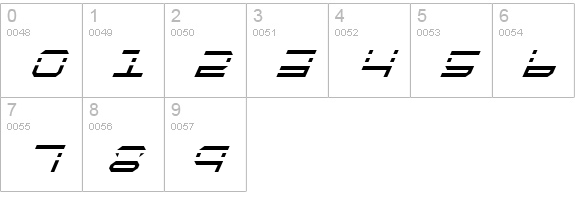
QuickQuick Condensed Italic is a distinctive, condensed-width, italic variant in the QuickQuick typeface family \xE2\x80\x94 well suited to design and typography projects.
Introducing QuickQuick Condensed Italic, the perfect fusion of elegance and efficiency. This font is designed to captivate your audience with its sleek and stylish aesthetic, while also providing a practical solution for all your typographic needs. QuickQuick Condensed Italic boasts a unique blend of sharp angles and flowing curves, creating a harmonious balance that is both visually striking and highly legible. Its condensed form allows for maximum space utilization, making it ideal for projects that require a compact yet impactful design. Whether you're creating eye-catching headlines, designing modern logos, or crafting professional presentations, QuickQuick Condensed Italic is your go-to choice for adding a touch of sophistication to your work. Its italicized variation adds an extra layer of elegance and flair, perfect for emphasizing important elements or creating a sense of motion and dynamism. But that's not all – QuickQuick Condensed Italic is not only impressive in its design, but also in its accessibility. We believe that everyone deserves access to high-quality fonts, which is why we are thrilled to offer QuickQuick Condensed Italic for free. That's right, you can freely download this extraordinary font at FontsMarket.com, where a world of possibilities awaits. So why wait? Elevate your designs with QuickQuick Condensed Italic and experience the seamless blend of style and functionality. Download your free copy today and unleash your creative potential.